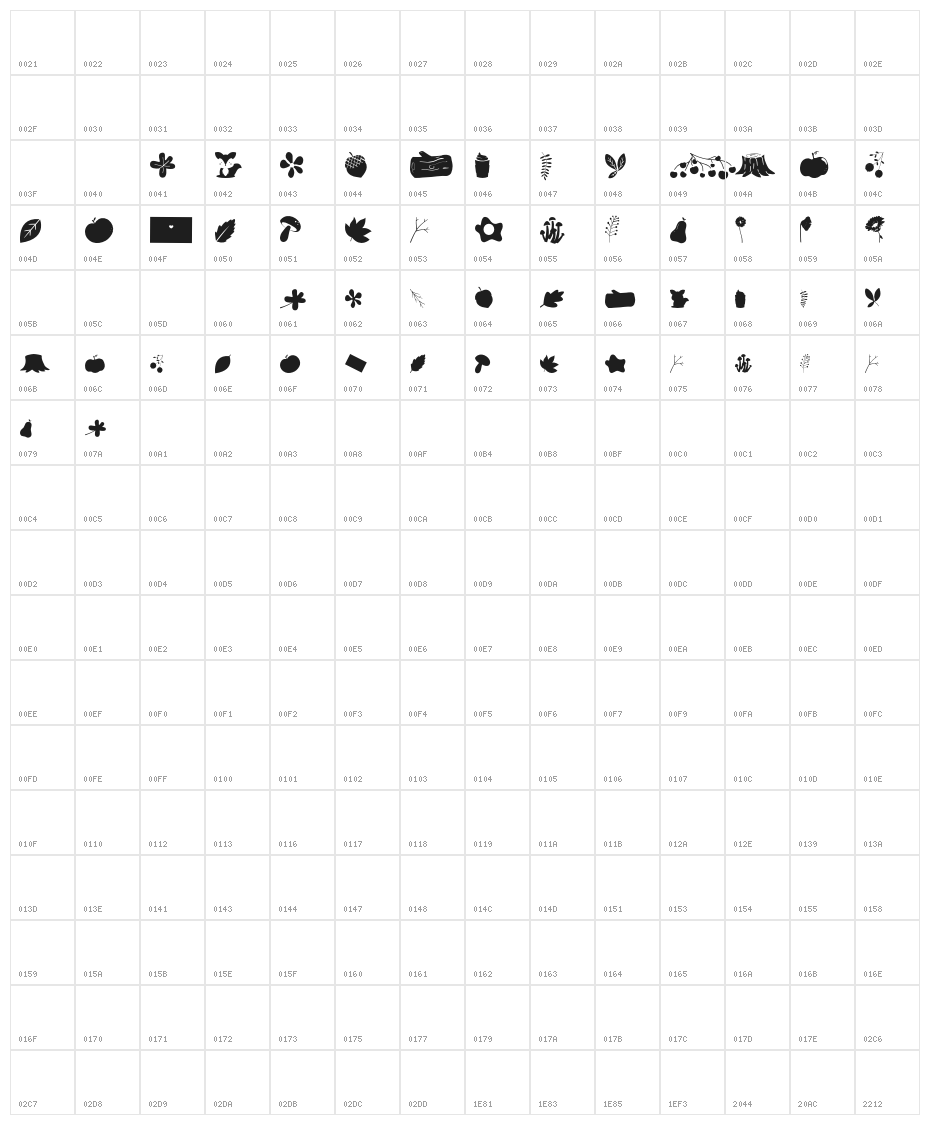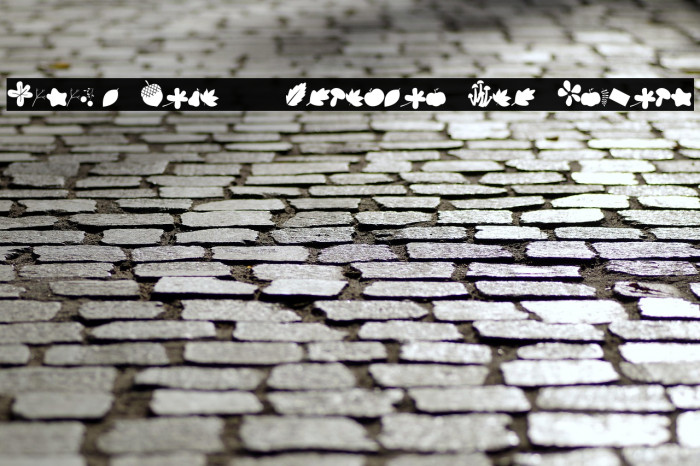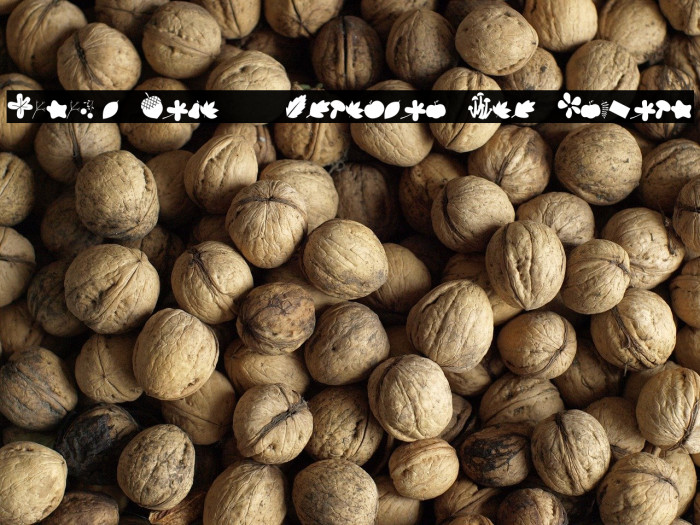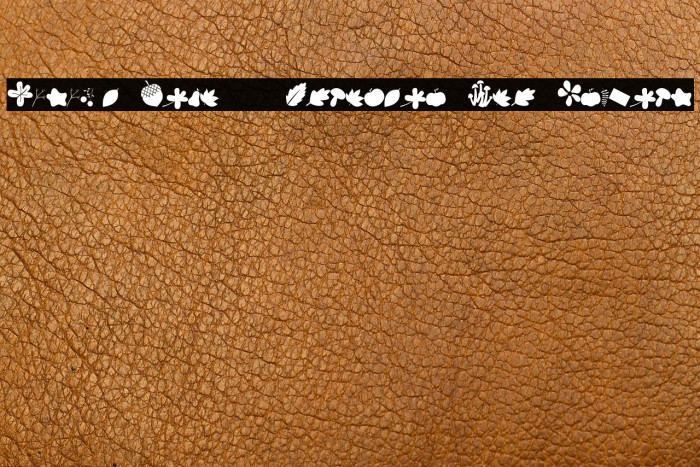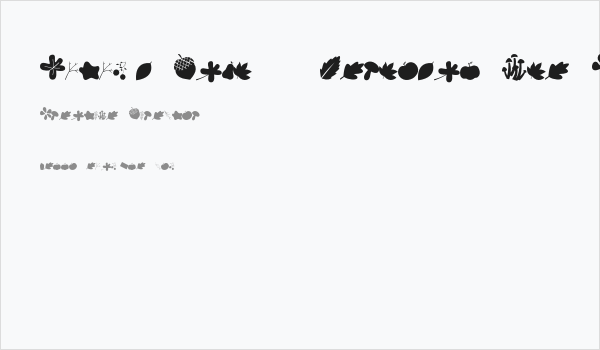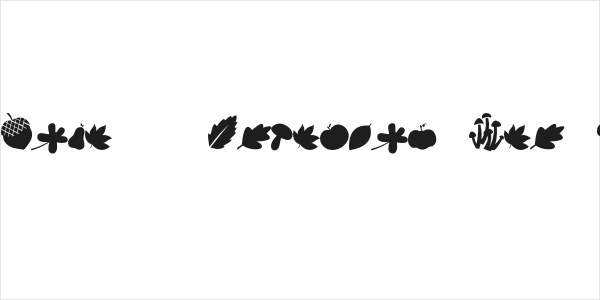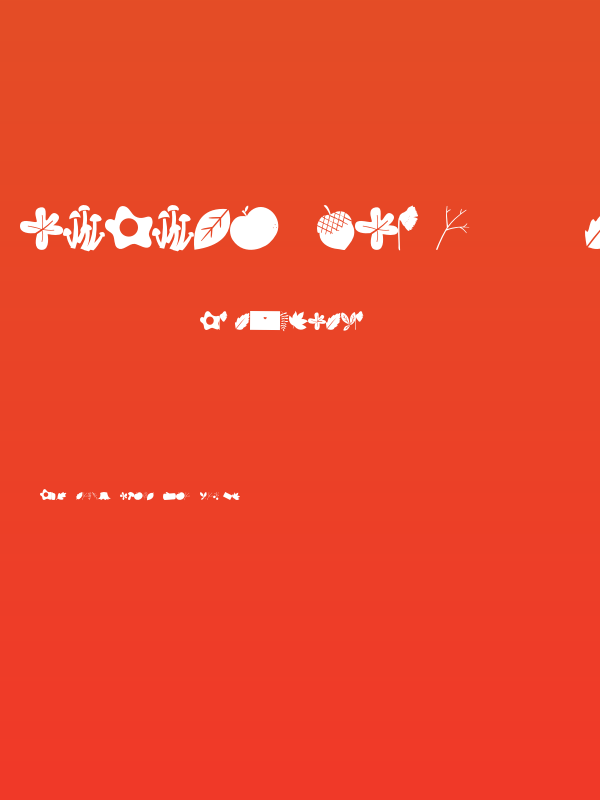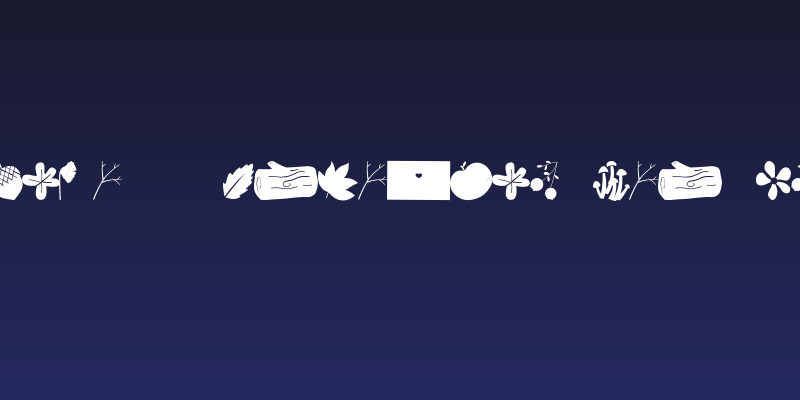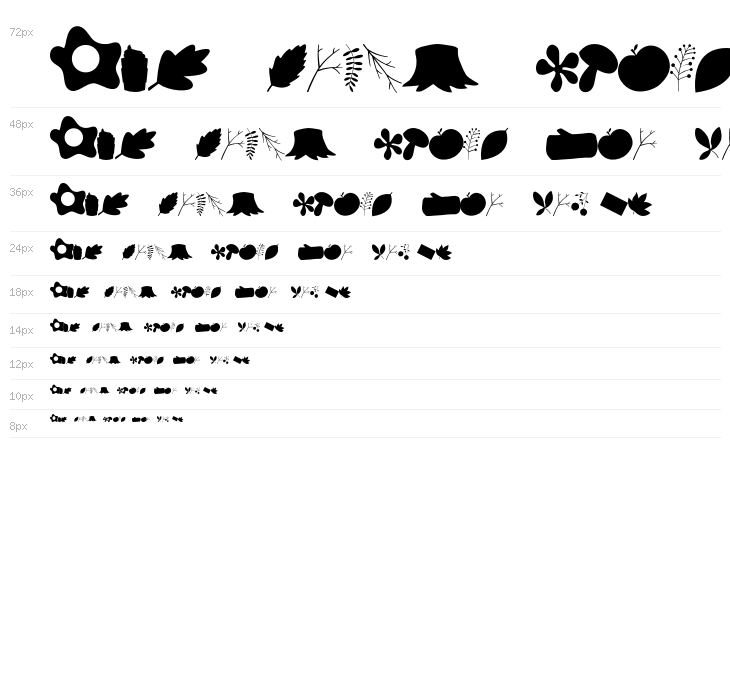
Autumn Days - Personal Use Clipart Font
Autumn Days - Personal Use Clipart Description
A decorative dingbat font featuring solid black autumn-themed silhouettes such as leaves, mushrooms, fruits, logs, flowers, and tree stumps. Each character is a unique seasonal clipart illustration, with consistent boldness and simple, easily recognizable shapes.
| Overall Style | Decorative, Seasonal, Playful |
| Use Case | Clipart, Decorative accents, Themed graphics |
| Proposed Projects | Seasonal greeting cards, scrapbooking, educational materials, autumn event flyers, decorative borders. |